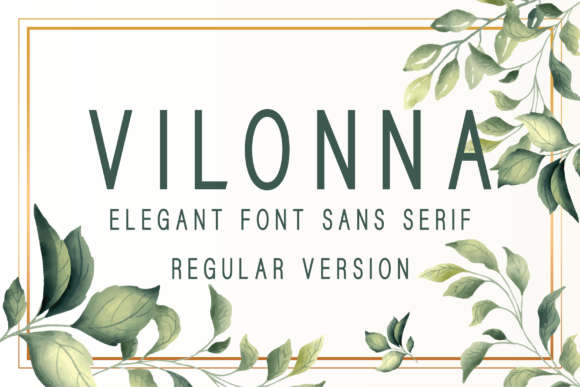
Prepare yourself to be mesmerized by Vilonna, a captivating sans serif font that will make your designs shine! Inspired by the timeless elegance of mid-century modernism, Vilonna captivates with its crisp lines and sharp edges.
With two perfectly balanced weights, Vilonna offers an unparalleled level of versatility, adapting effortlessly to any project. Whether you're creating logos that command attention, crafting elegant wedding invitations, or designing eye-catching magazine covers, Vilonna is your go-to typeface.
Imagine your words dancing across the page with Vilonna's chic and sophisticated style. Let your logos exude confidence and professionalism, your invitations radiate warmth and charm, and your print designs leave a lasting impression.
Don't settle for ordinary fonts. Embrace the allure of Vilonna and unleash your creativity. Its timeless beauty and unwavering versatility will elevate your designs to new heights, leaving an unforgettable mark on your audience.